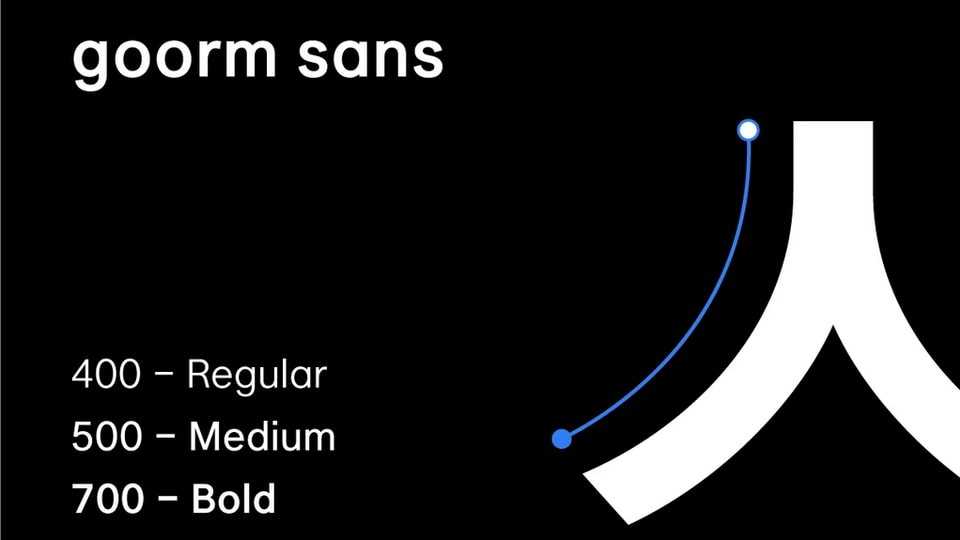
Download Goorm Sans font, a versatile design typeface available in three styles, making it suitable for a wide range of media applications.
Designer: Goorm Inc.